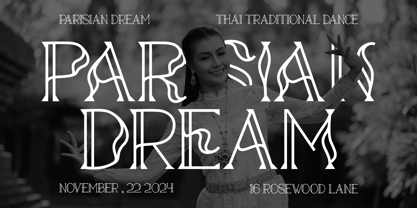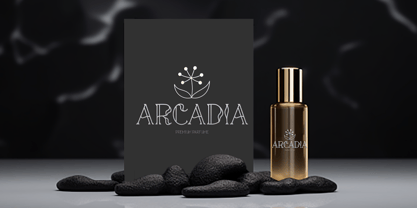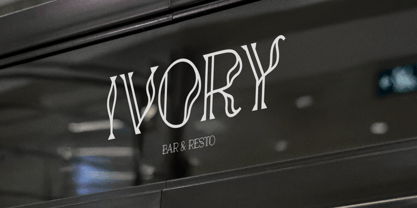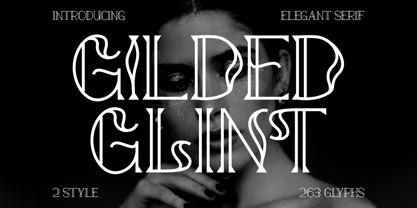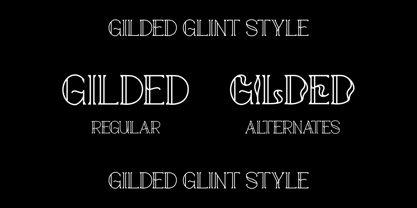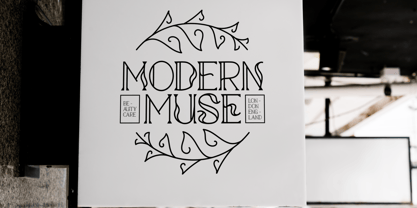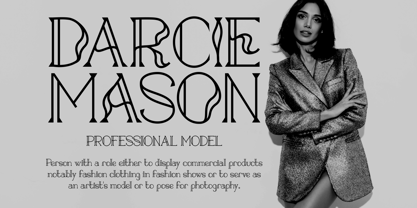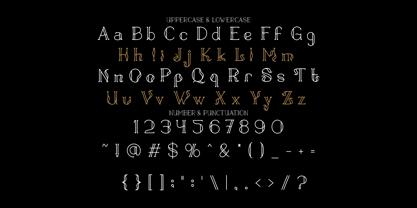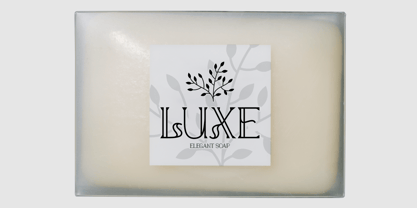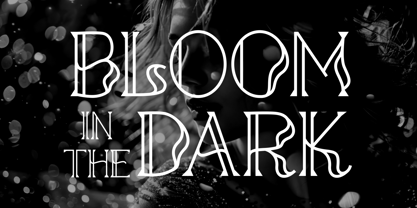
Gilded Glint
The Gilded Glint Font Family was designed by Putra Novembria Candra Kusuma and published by Putracetol. Gilded Glint contains 1 styles. More about this family
Introducing Gilded Glint, a striking and sophisticated elegant serif font designed to infuse your projects with modern luxury and refined charm. The font features uniquely curved and flowing elements that blend seamlessly with sharp, geometric serifs, creating a harmonious balance of elegance and boldness. Each glyph showcases meticulously crafted details with a contemporary twist, making it a perfect choice for captivating display typography. This font comes with two distinct styles and 263 glyphs, offering flexibility and uniqueness for creative expression.
The elegant strokes and decorative curves of Gilded Glint make it an exceptional option for logo design, branding, packaging, and high-end fashion projects. Its graceful yet artistic form lends a distinctive flair to wedding invitations, book covers, movie titles, and editorial layouts. Whether you're working on luxurious branding or a dramatic headline, this serif font delivers sophistication with every letter. Enhance your designs with the timeless beauty of Gilded Glint and let your creativity shine with a font that speaks elegance, style, and modernity.